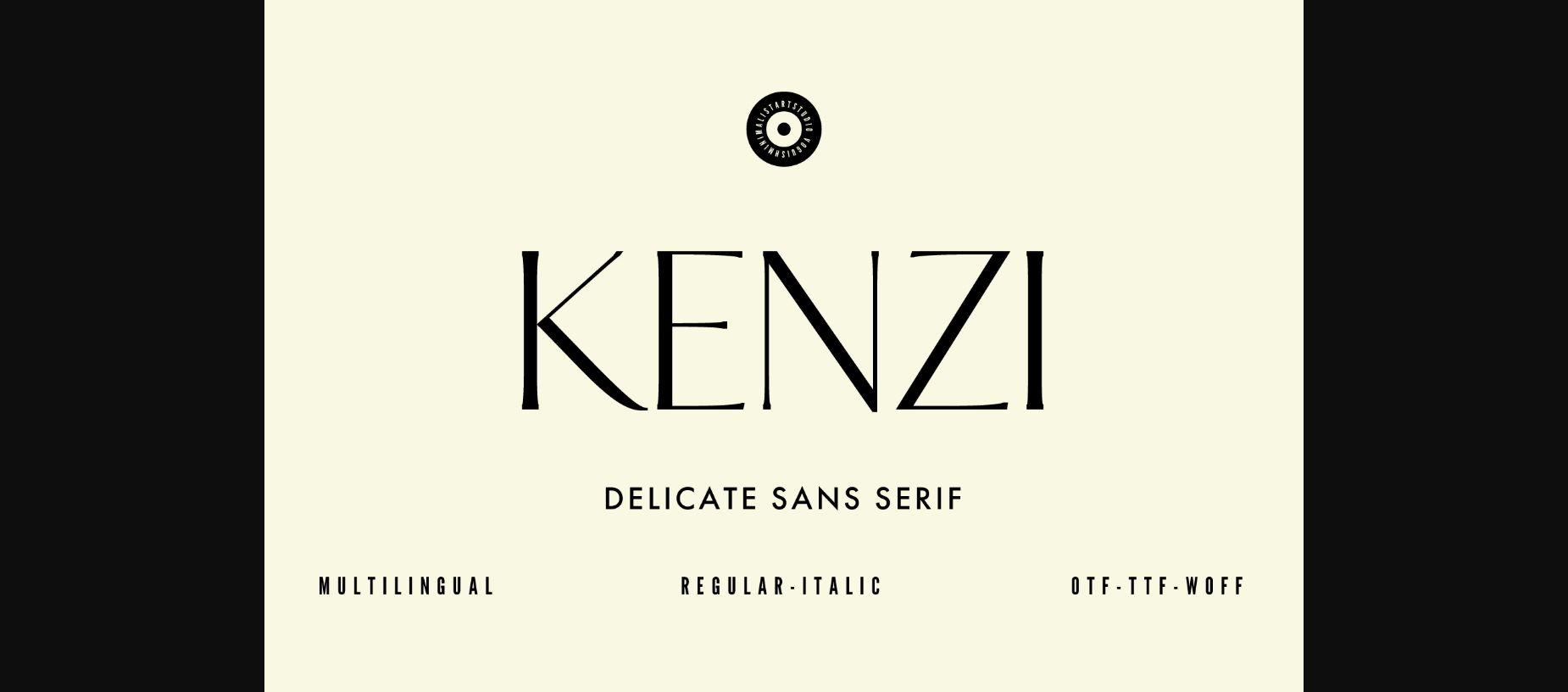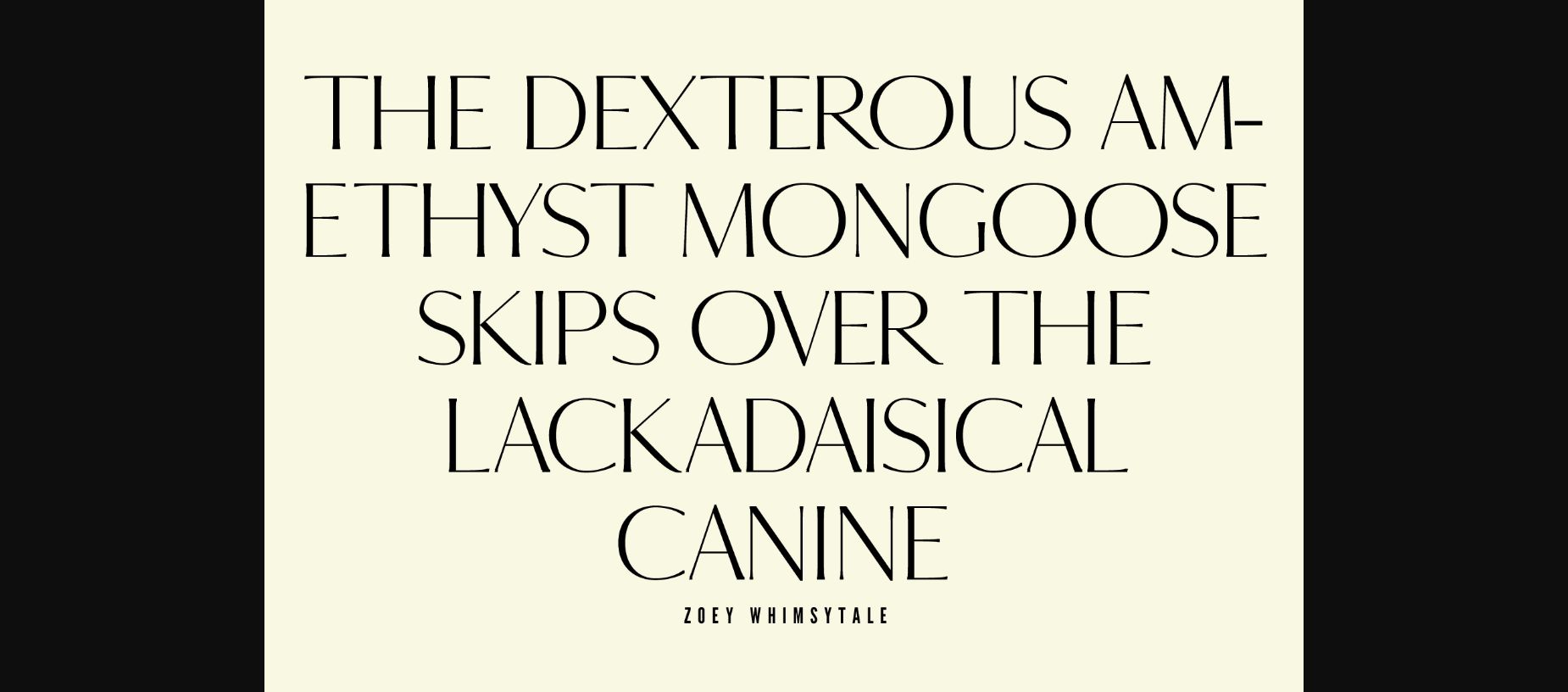
About Kenzi Font
“Introducing ‘Kenzi’ – the epitome of elegance and modernity. This chic and delicate sans serif typeface offers a refined simplicity, perfect for any design project. Its clean lines and balanced characters exude sophistication, making it a timeless choice for logos, branding, and editorial layouts. With excellent legibility and versatility, ‘Kenzi’ empowers your creations to stand out and leaves a lasting impression on your audience. Embrace the future of typography with ‘Kenzi’ and elevate your designs to new heights!”